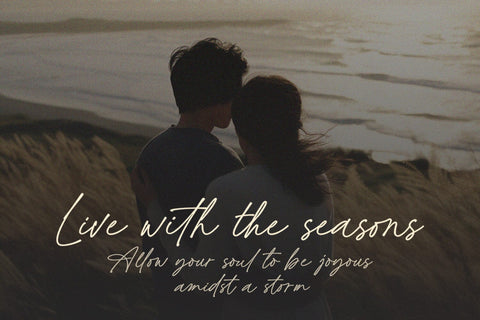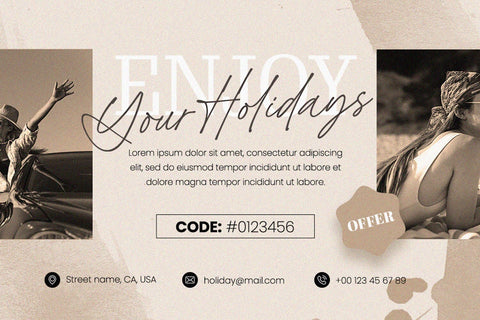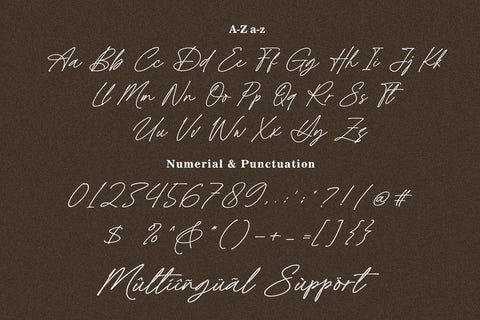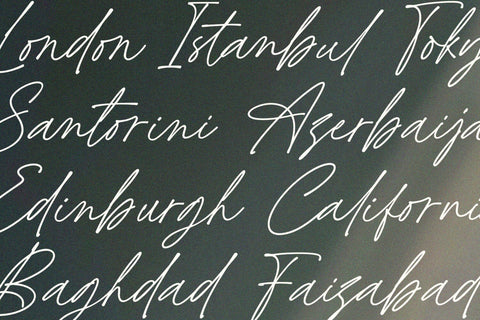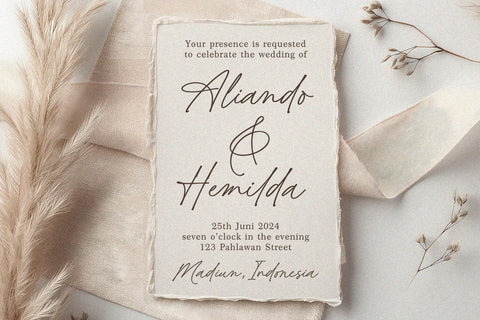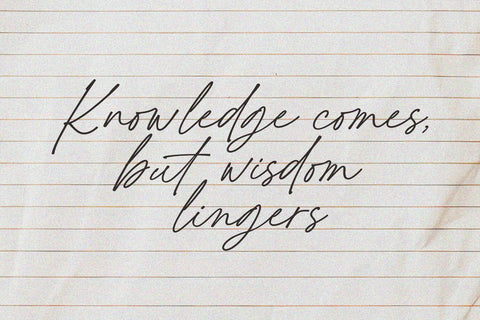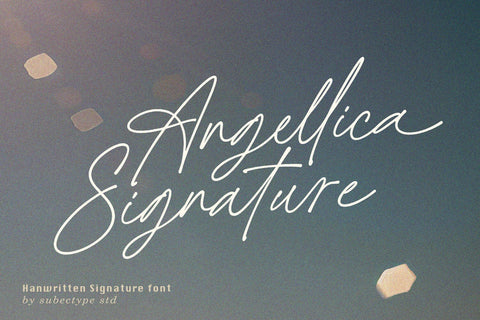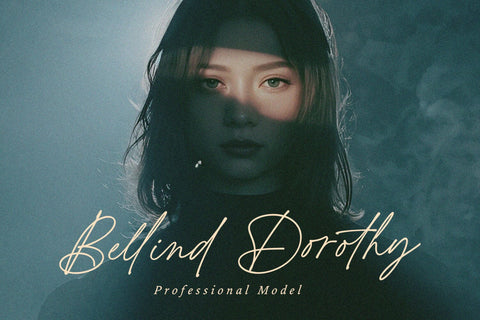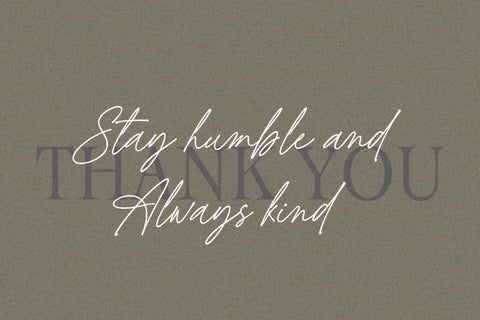
Angellica Signature - Handwritten Script Font
Introducing the new "Angellica Signature" font, a handwritten signature font. For those of you who are needing a touch of clean handwritten signature,
chic and modernity for your designs, this font was created for you!
Angellica Signature was built with beautiful ligatures
and It has an extensive lingual support, covering all European Latin scripts.
Alternate Letter and Ligatures
Multilingual Support